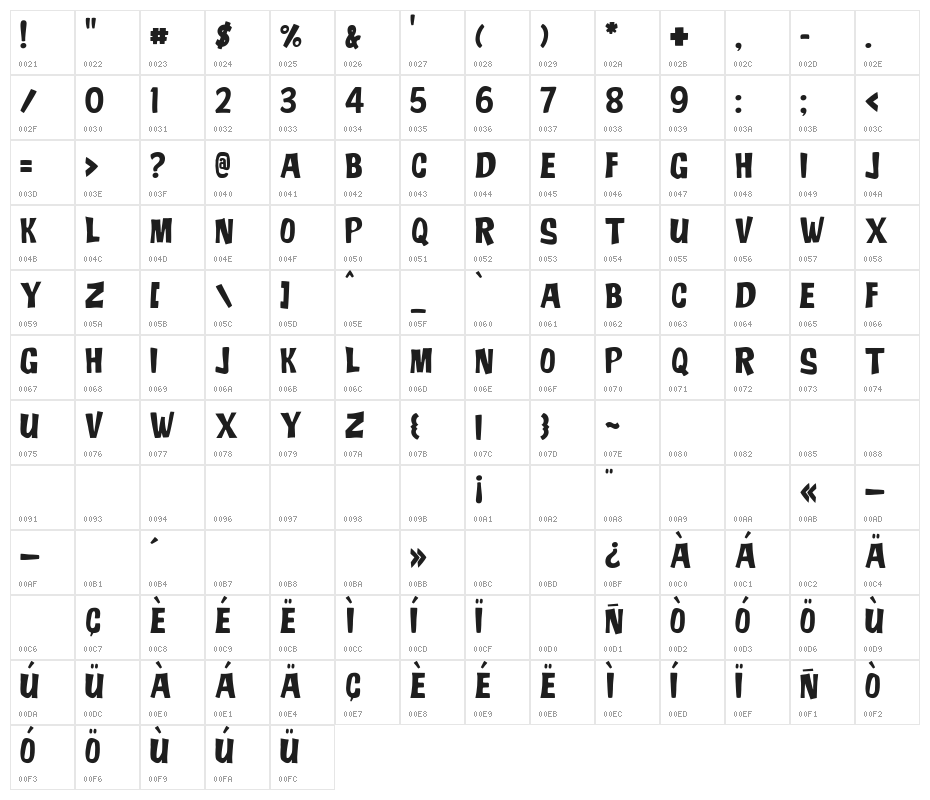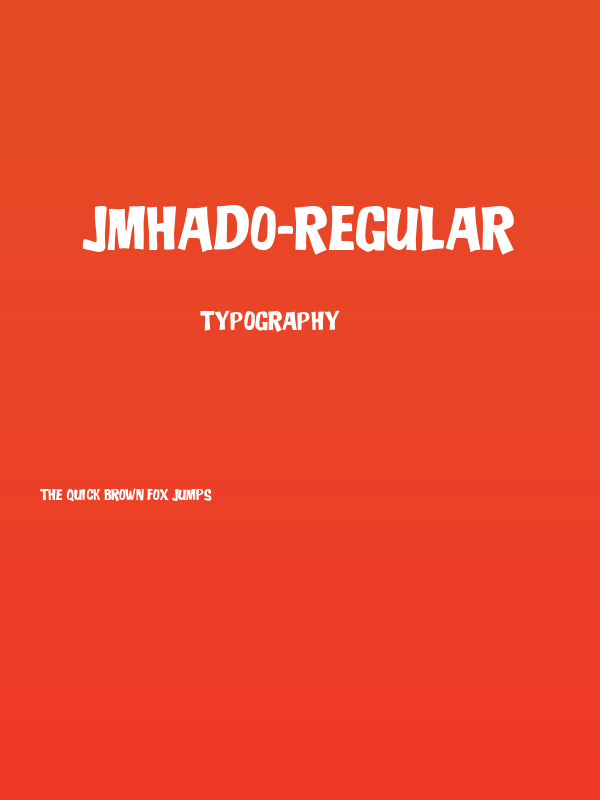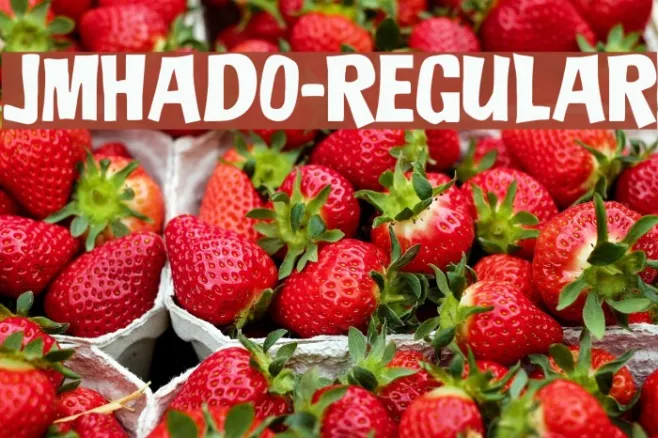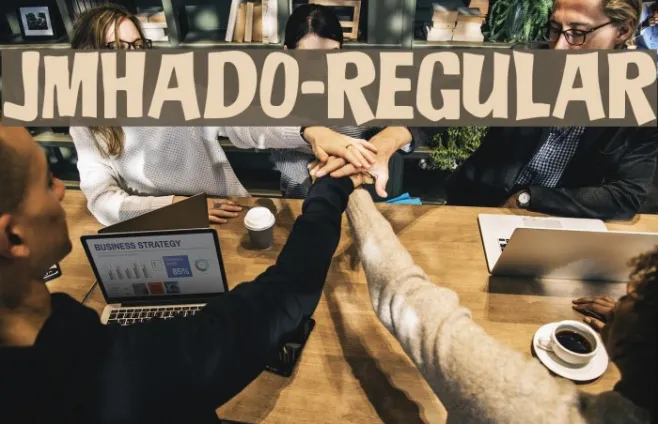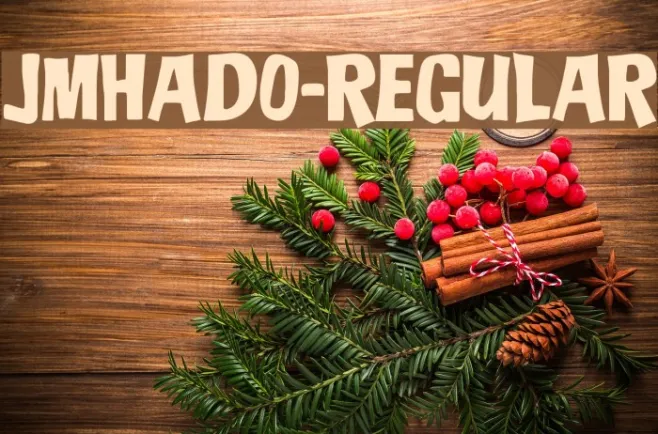
JMHADO-Regular Font
JMHADO-Regular Description
This font features a bold and playful design with thick, uneven strokes that give it a hand-drawn appearance. The characters are slightly irregular, adding a whimsical touch to the overall style. It has a strong presence, making it ideal for attention-grabbing headlines or creative projects. The letters are wide and have a substantial weight, contributing to its bold look. The numbers and special characters maintain the same playful and robust style, ensuring consistency across all elements.
| Overall Style | Playful, Decorative |
| Proposed Projects | Ideal for children's books, posters, logos, and any project requiring a fun and bold typeface. |